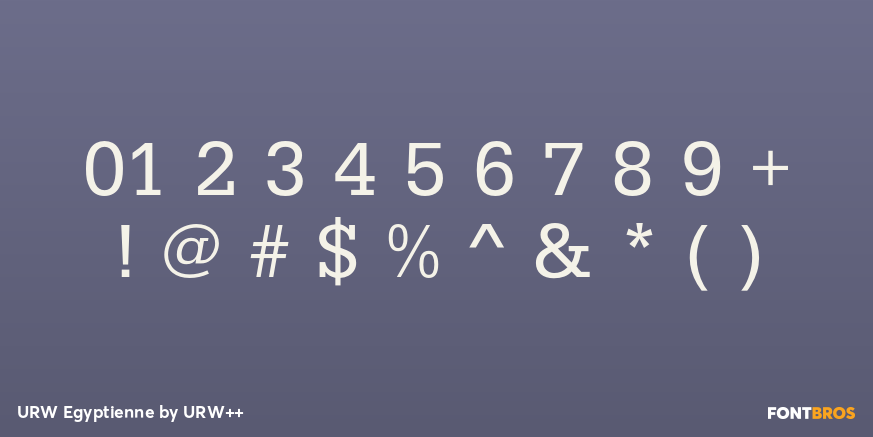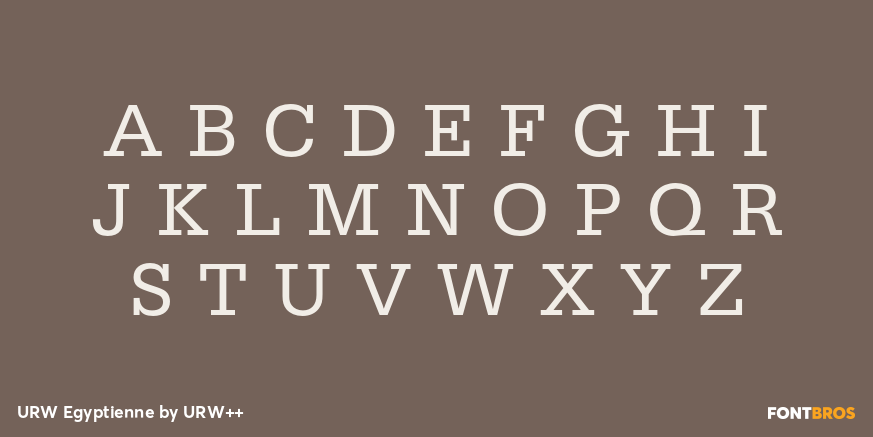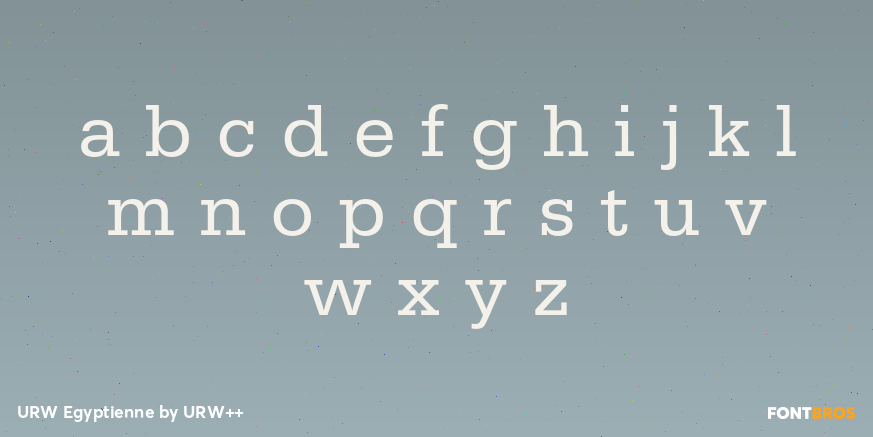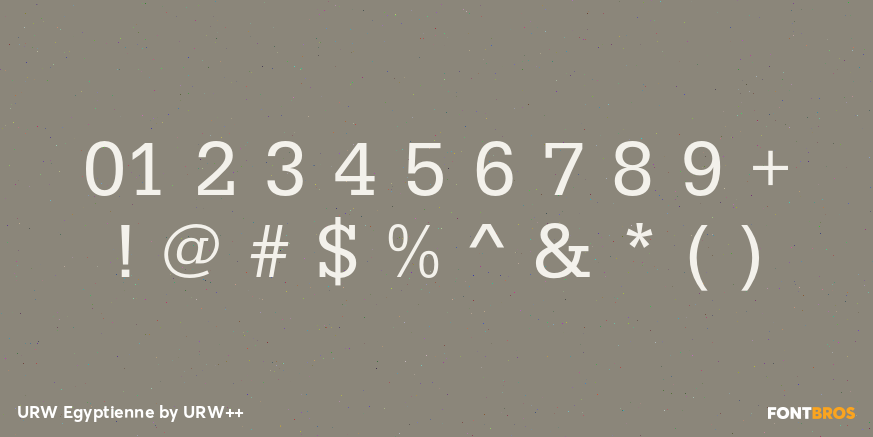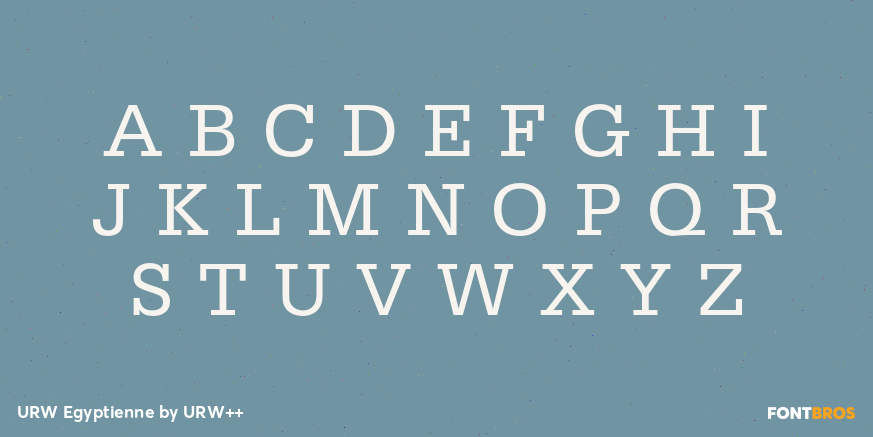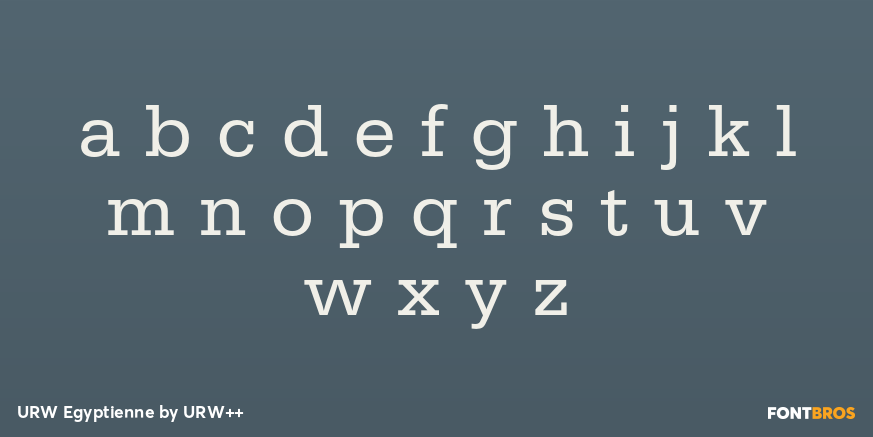
URW Egyptienne
Font Family by URW++
URW Egyptienne is a slab serif family with a distinctly 19th-century spirit, balancing blocky, rectangular serifs and strong verticals with a crisp, refined structure. The overall feel is bold, bookish, and editorial, giving headlines and display settings a confident presence while still reading cleanly on the page.
With 50 styles included, the family offers a broad range of proportions and weights, from Extra Light to Bold, plus obliques, including Extra Narrow, regular widths, Wide, and Extra Wide options. That range makes it especially useful for posters, newspaper-style headlines, signage, editorial design, and other print-forward branding where you want a sturdy serif voice with both vintage character and contemporary control.